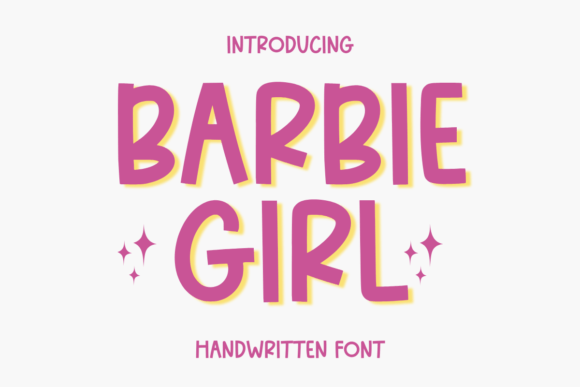
Barbie Girl Font
Barbie Girl is a font that epitomizes charm and whimsy! Packed with youthful appeal, this font is an ideal choice for quotes, cute t-shirts, stylish mugs, brightly colored glasses, and adorable kids’ t-shirts. It also adds a magical touch to headlines, making your print or digital platform stand out. The Barbie Girl font adds life to ordinary things, turning everyday items into joyful manifestations of creativity. It’s not just a font; it is an expression of fun and playfulness, designed for those who love whimsy and are kids at heart. Dive into a sea of ​​imaginative typography with the Barbie Girl font.